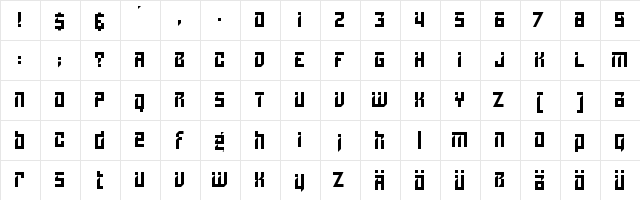
Lampoon Regular
| Designer | James Vipond |
Design Context for Lampoon Typeface
Lampoon takes a measured approach to typography — its balanced proportions and neutral character make it a reliable workhorse for both digital and print work.